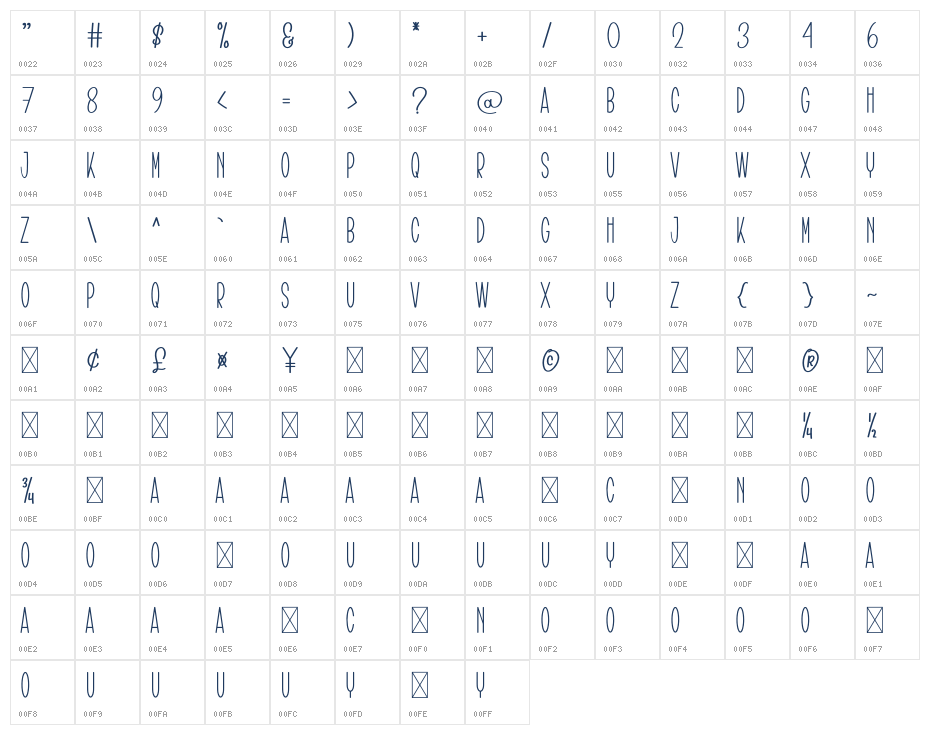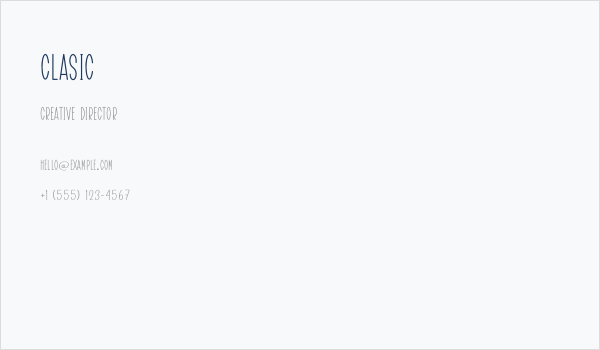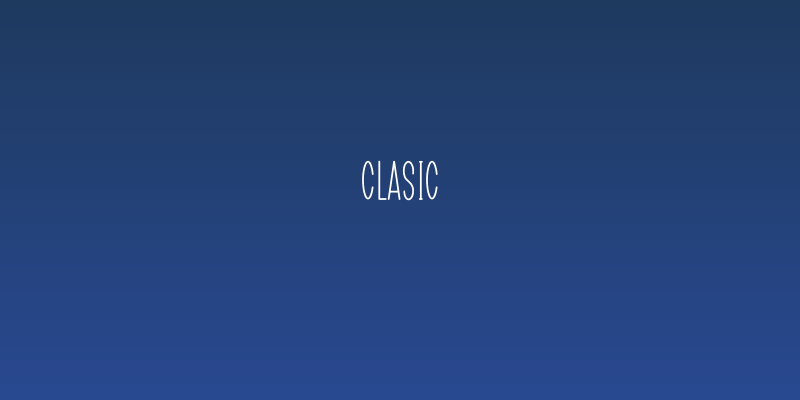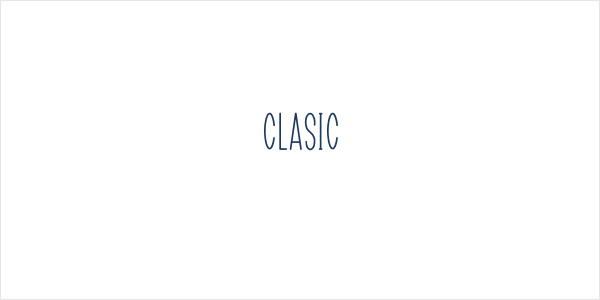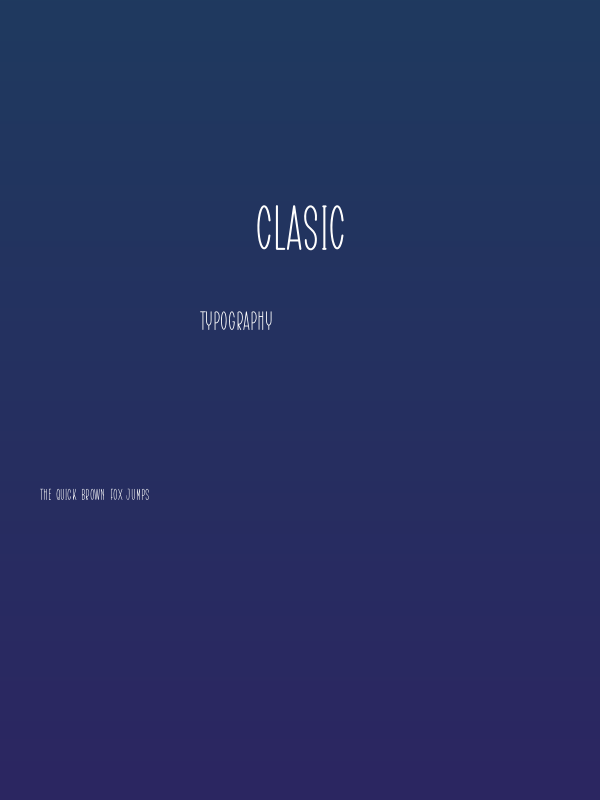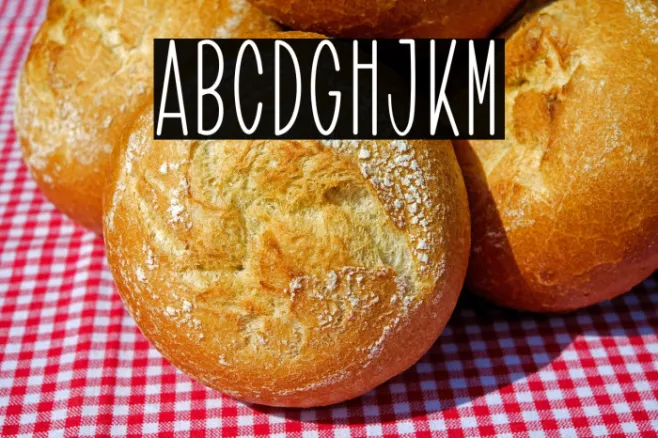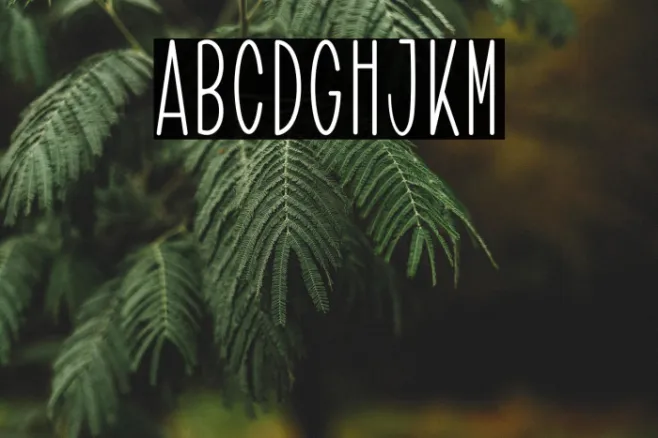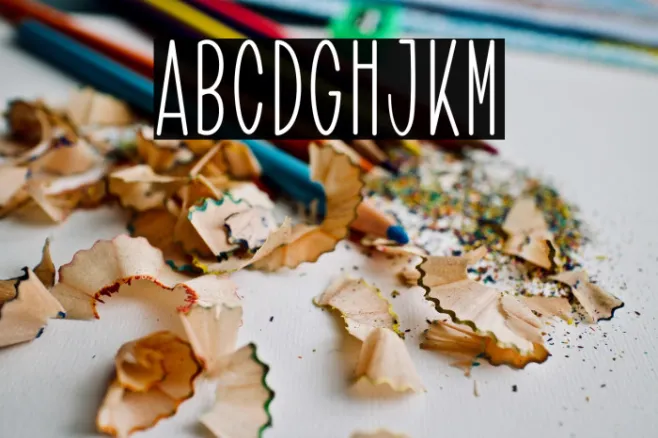
Clasic Font
Clasic Description
A tall, thin, handwritten style font with a casual and playful appearance, featuring elongated characters and a slightly irregular stroke width.
| Overall Style | Casual, Playful, Handwritten |
| Use Case | Headlines, Invitations, Greeting Cards, Children's Books |